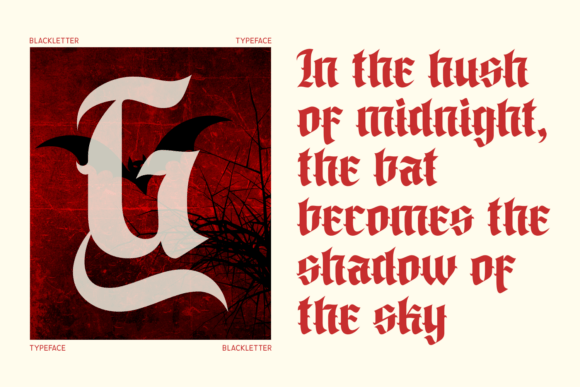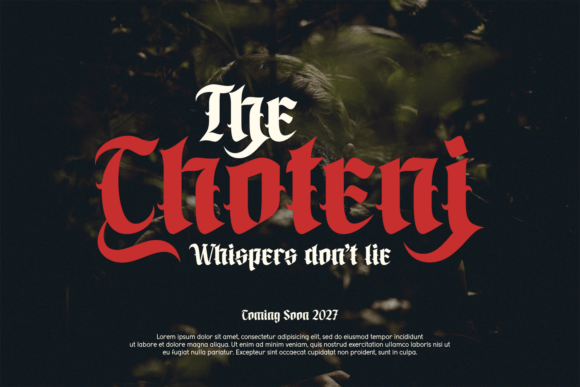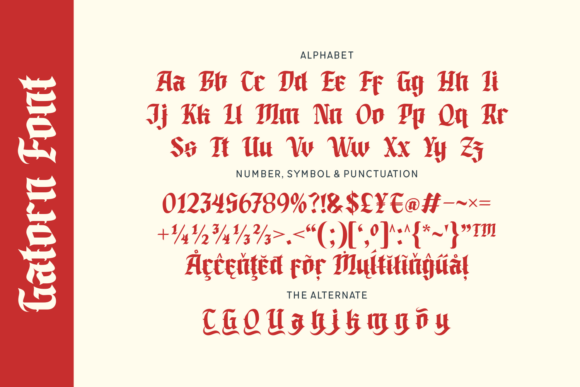
Introduction to Gatorn Font
Have you ever found yourself stuck on a creative project, searching for the perfect font to bring your dark and edgy vision to life? I know I have. It’s those moments of frustration that spark the excitement of discovery, and for me, that discovery is the Gatorn Font.
This sleek and modern blackletter typeface is not just another addition to the design world – it’s a game-changer. With its striking characters and high-quality design, Gatorn Font is poised to take your branding and media projects to the next level. Whether you’re working on a thriller novel, a horror movie, or a gothic-inspired poster, this font is the perfect design resource to elevate your work.
Key Features of Gatorn Font
- High-quality typography with a unique, modern design suitable for creative projects.
- Features a transparent background, allowing for easy customization and blending with any design element.
- Designed to be highly legible and versatile, making it suitable for a wide range of creative projects, from logos to typography-based art.
Honest Review: Gatorn Font
I recently came across the Gatorn Font, and I was immediately drawn to its unique and quirky style. As a designer, I’m always on the lookout for high-quality design resources to elevate my creative projects.
Here are some of the things that work well about the Gatorn Font:
- Unique and creative style that adds a touch of personality to any project
- High-quality design that looks great on both digital and print materials
- Transparent background makes it easy to customize and combine with other design elements
- May not be suitable for projects that require a more traditional or formal font style
- Some users may find the font’s quirky style to be distracting or overwhelming
- Not as extensive a character set as some other fonts
Overall, I think the Gatorn Font is a great addition to any designer’s toolkit. While it may have some limitations, its unique style and high-quality design make it a valuable resource for creative projects.
Tips for Getting the Most Out of Gatorn Font
To get the most out of Gatorn Font, use it in combination with other design elements to create a cohesive and visually appealing design. Experiment with different font sizes, colors, and styles to find the perfect look for your creative project.
Gatorn Font is commonly used in graphic design, digital art, and creative projects that require a high-quality and unique font. Its transparent background makes it perfect for creating visually appealing graphics, presentations, and documents.